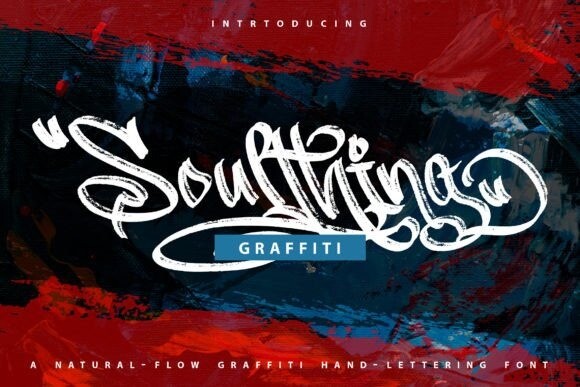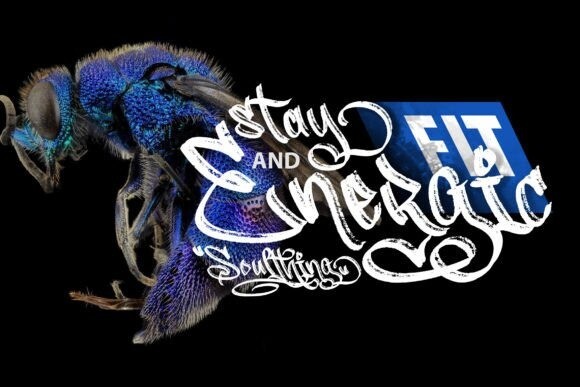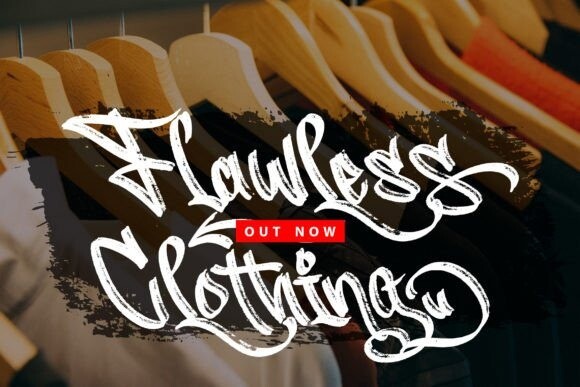
Soulthing Font
Soulthing – Graffiti display font with a calligraphy style. I will look so beautiful on invitations like greeting cards, branding materials, business cards, quotes, posters, and more!